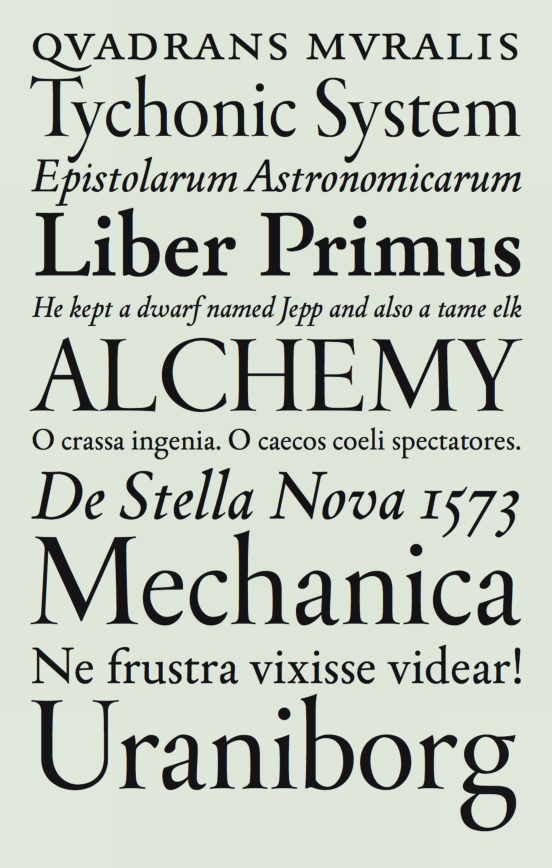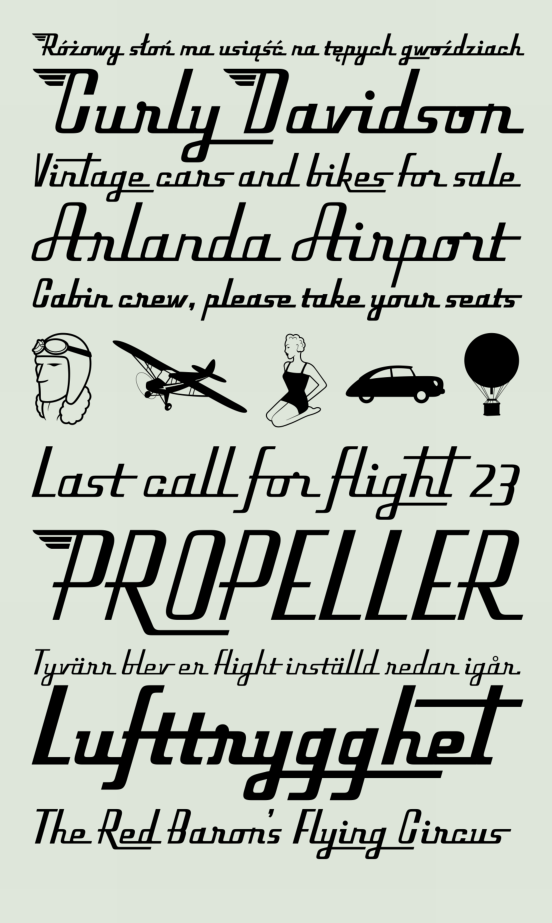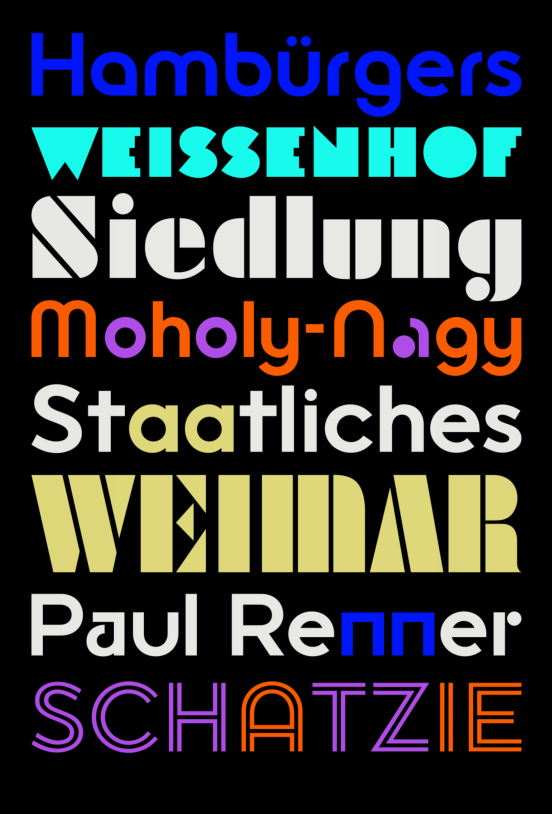
This year Fountain has been operating as a type foundry for 15 years. To celebrate this we decided to make some changes.
Fountain is proud to announce the launch of our new website, a brand new OpenType library and the release of 4 new typefaces.
New OpenType library
It took a while – a bit longer than we guessed and hoped – but we are very happy to finally have converted the fonts in our library into the OpenType format. It has not been an easy task. When necessary we have had to re-drawn the glyph curves from scratch and fix old glitches. The glyph sets has been expanded to cover full CE support. A full range of different OpenType features has been added.
The 4 new typefaces
On this day of celebration it would be suitable to not only update our old fonts, but also to release some new typefaces. We think the selection is a nice mix of genres, and we also take the oppertunity to say welcome to two new type designers – Lucas Brusquini and Göran Söderström.
Atlantik - Ocean ornaments in 6 fonts
Atlantik is a font family filled with ornaments related to the waves . Based on patterns from old specimen books it holds a collection of 213 single ornaments divided into 6 sets.
Designed by Sylvia and Daniel Janssen.
Dessau Pro - A historical sans serif family
Dessau is a take on Bauhaus typography with an Hungarian twist. This typeface family consists of a total of 11 different styles, and variations.
Designed by Gábor Kóthay.
Flieger Pro - A geometric script in three weights
The origin for this typeface comes from an old logotype. But Göran Söderström has expanded the idea to a large glyph collection of alternates,swashes, end-glyphs and ligatures. Lotta Bruhn added a set of illustrations in font format to go with the typeface and a set of wing initials.
Designed by Göran Söderström. Illustrations and wings by Lotta Bruhn.
Tycho Pro - A serif family rooted in the stars above
The typeface Tycho started as a college project. The printed works of Danish astronomer Tycho Brahe, was the starting point. It soon became clear that the font used was of very poor quality and most likely a mix of several different fonts. Gradually the work shifted from pure revival to the design of a new typeface. Tycho comes in four styles – Book, Book Italic, Bold and Display – all with full CE support, Small Caps and OT features.
Designed by Lucas Brusquini.